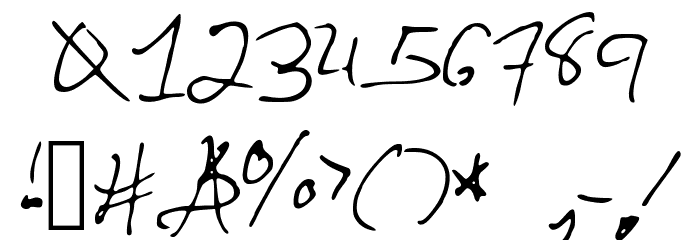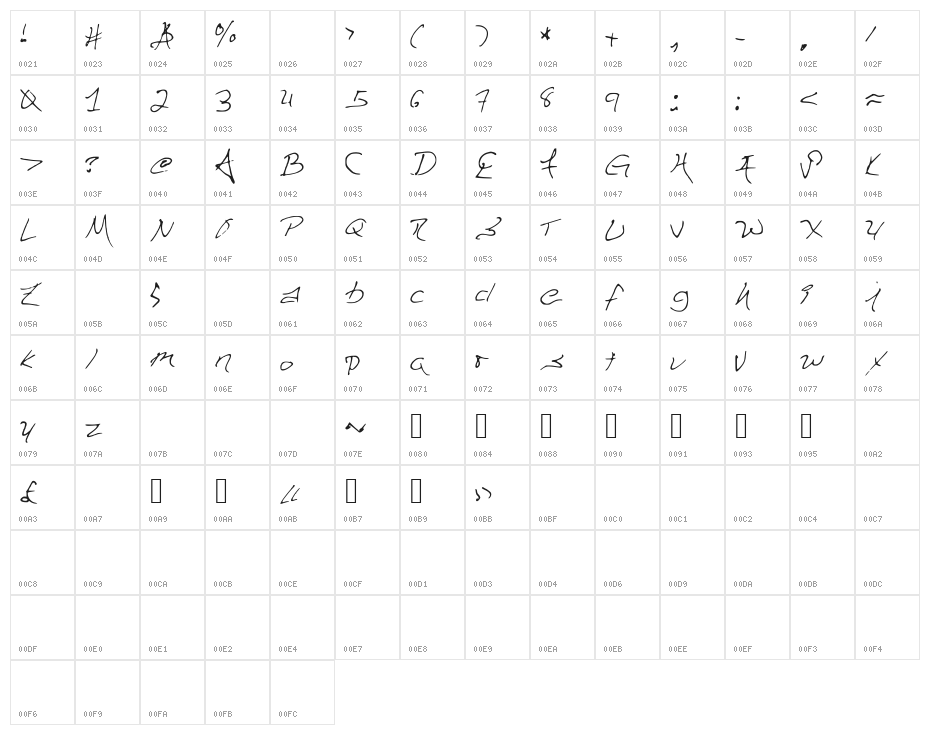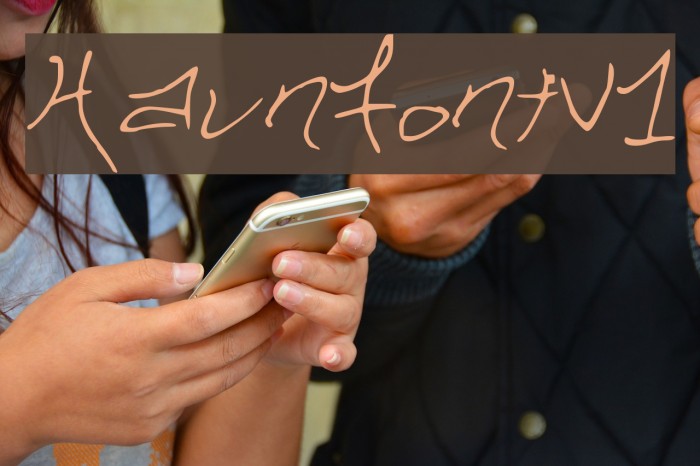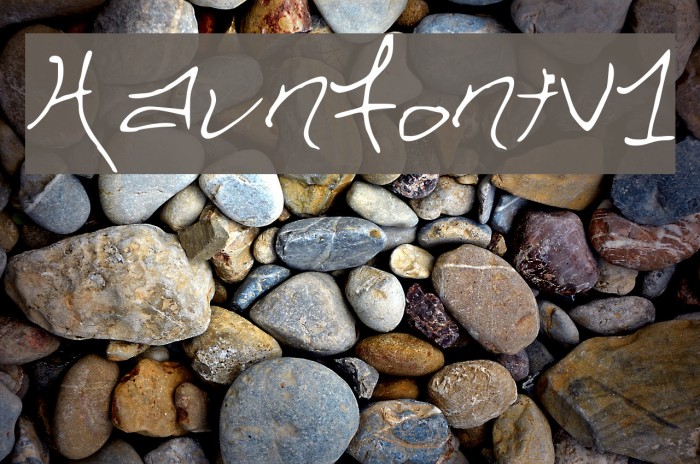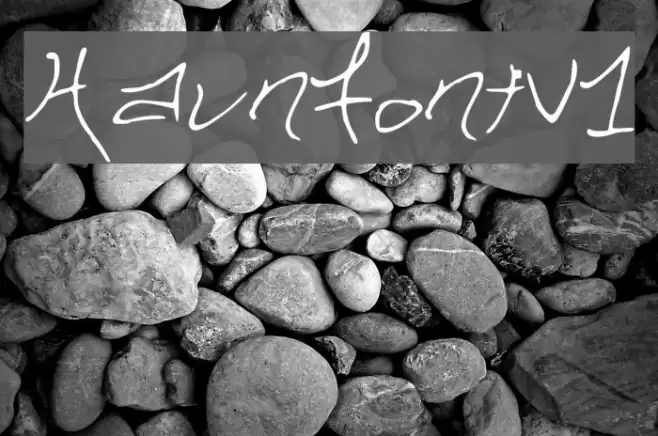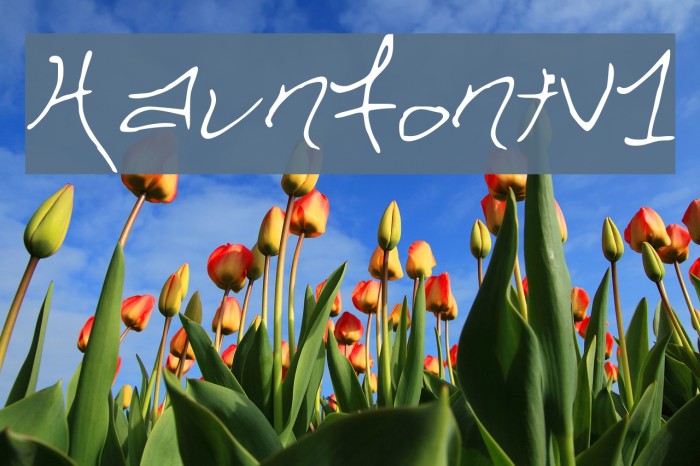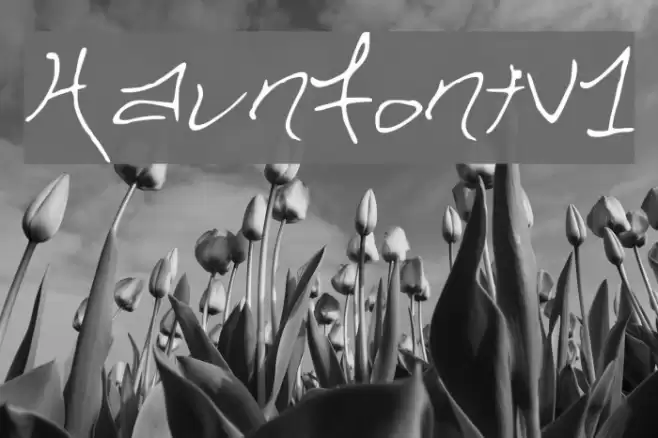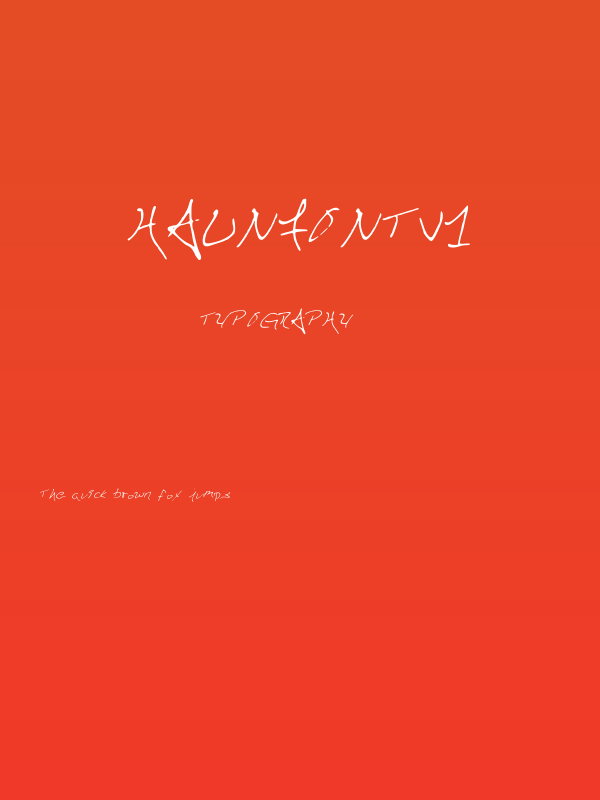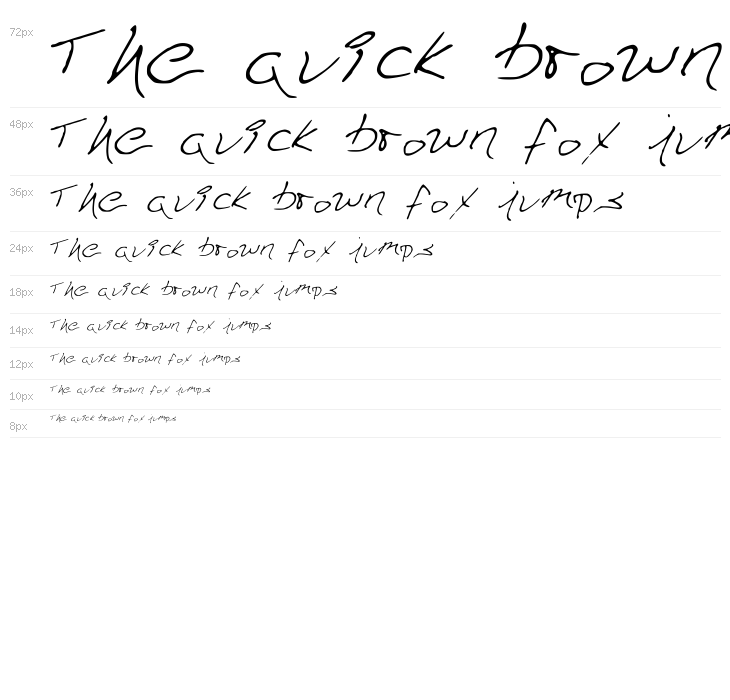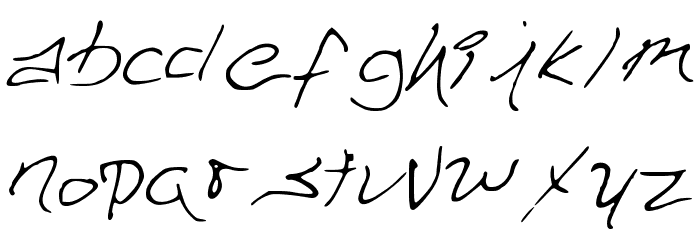
HaunFontV1 Font
HaunFontV1 Description
This font features a dynamic and expressive handwritten style, characterized by fluid strokes and a natural, organic flow. The letters exhibit a playful yet sophisticated appearance, with varying line thickness that adds a sense of movement and energy. The uppercase and lowercase letters maintain a consistent style, while the numerals and special characters integrate seamlessly, enhancing the font's versatility. The overall design conveys a sense of personal touch and creativity, making it suitable for projects that require a humanistic and artistic flair.
| Overall Style | Artistic, Creative |
| Proposed Projects | Ideal for creative projects such as greeting cards, invitations, personal branding, artistic posters, and social media graphics. |